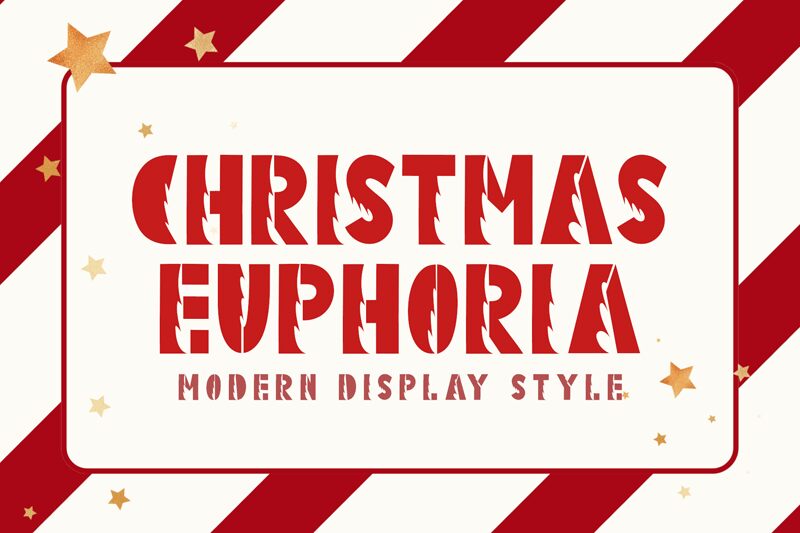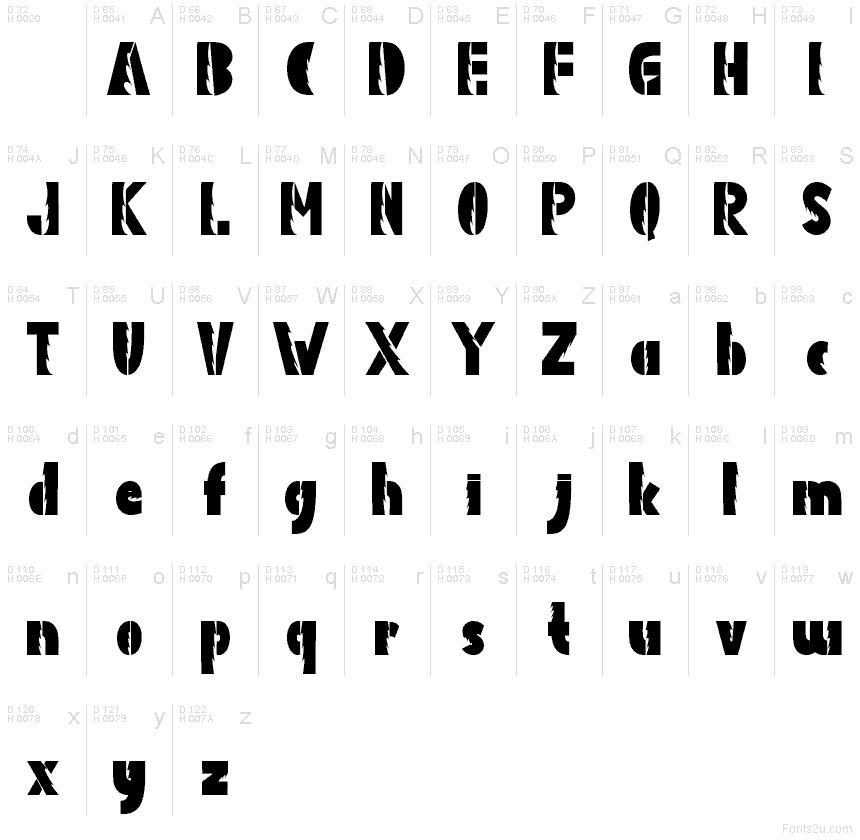
Christmas Euphoria font by Yoga Letter is a free gothic decorative typeface that turns holiday cheer into something a little darker and more dramatic. Heavy, inky strokes feel almost carved or stamped, while the sharp, broken interiors give each letter a frosted, splintered look-like Christmas lights seen through cracked ice. It’s bold, moody, and instantly seasonal without slipping into anything cute or generic.
Using Christmas Euphoria font, you can bring a gothic twist to Christmas party posters, metal-leaning holiday album covers, gift tags, bold greeting cards, social media promos, and themed merch. This free font works best at large sizes where the fragmented texture can really breathe; pair it with a clean sans serif for body copy to keep layouts readable and visually balanced.